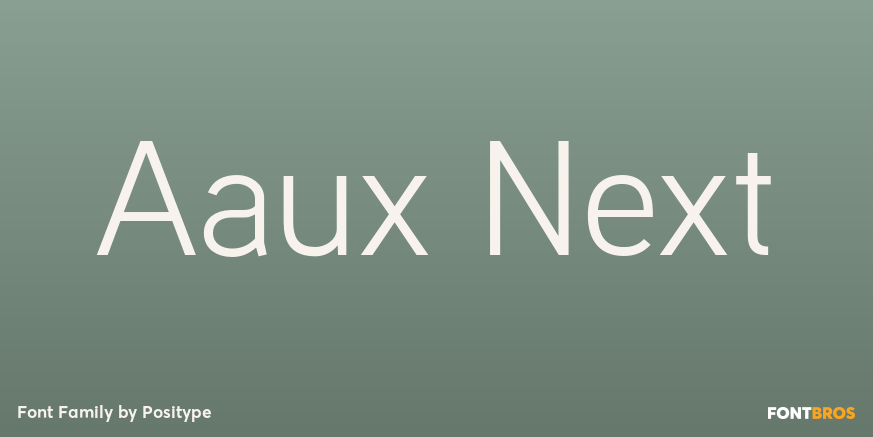
Aaux Next
About Aaux Next
When the original Aaux was introduced in 2002, I intended to go back and expand the family to offer more versatility. Years went by before I was willing to pick it up again and invest the proper time into building a viable and useful recut. Just putting…